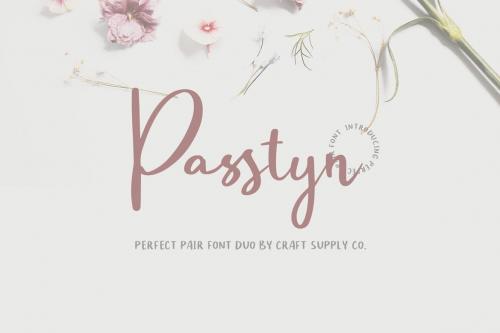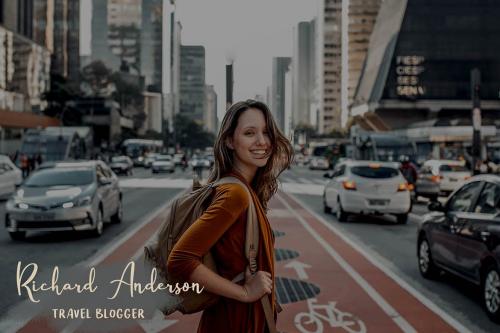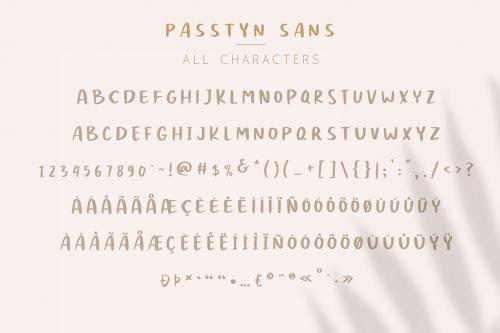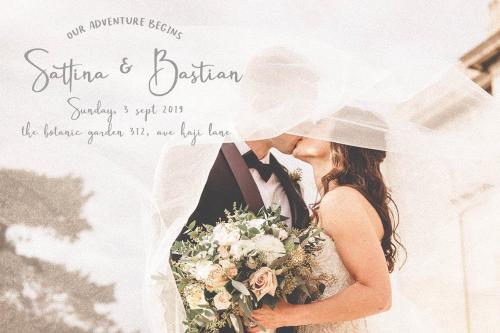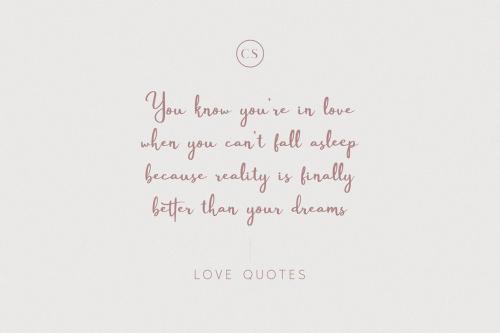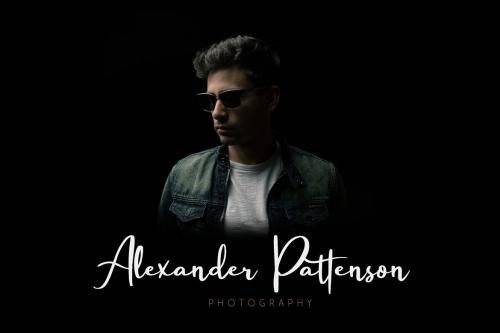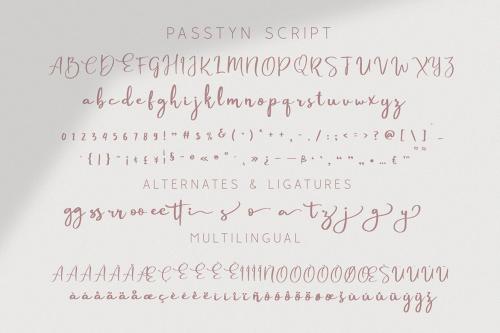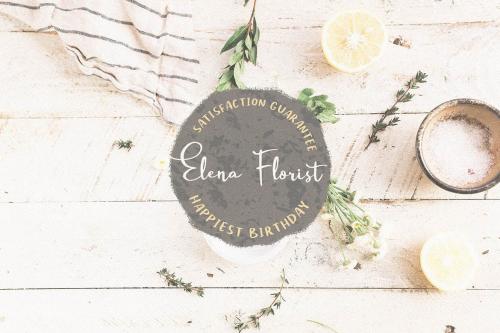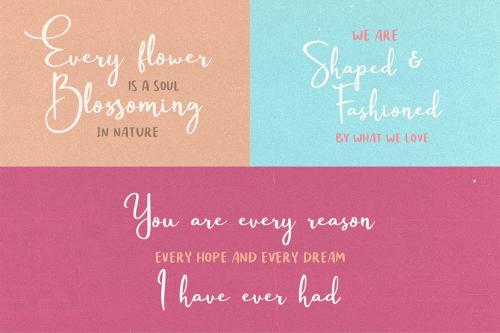
Passtyn - Handwritten Font Duo
Passtyn - Handwritten Font Duo is an handwritten script font based on the expression of real handwriting. Larissa - A Lovely Script Font will work perfectly for fashion, e-commerce brands, trend blogs, wedding boutiques or any business that wants to appear upscale and chic. Passtyn - Handwritten Font Duo also Suitable for Logo, greeting cards, quotes, posters, branding, name card, stationary, design title, blog header, art quote, typography, art, modern envelope lettering or book design, happening style like handdrawn design or watercolor design theme, craft design, any DIY project, book title, or any purpose to make your art/design project look pretty and trendy.
**Introducing New Font : Passtyn - Handwritten Font Duo**
Passtyn - Handwritten Font Duo is an handwritten script font based on the expression of real handwriting. Larissa - A Lovely Script Font will work perfectly for fashion, e-commerce brands, trend blogs, wedding boutiques or any business that wants to appear upscale and chic.
Passtyn - Handwritten Font Duo also Suitable for Logo, greeting cards, quotes, posters, branding, name card, stationary, design title, blog header, art quote, typography, art, modern envelope lettering or book design, happening style like handdrawn design or watercolor design theme, craft design, any DIY project, book title, or any purpose to make your art/design project look pretty and trendy.
**Features :**
- Uppercase & Lowercase
- Standard & Special Ligatures (gg ss rr oo ee tt i s o a t z j g y)
- Numerals & Punctuations (OpenType Standard)
- Accents/Multilingual characters (AÀÁÂÃÄÅCÇDÐEÈÉÊËIÌÍÎÏNÑOØÒÓÔÕÖUÙÜÚÛWYÝŸỲŸÆŒßÞ)